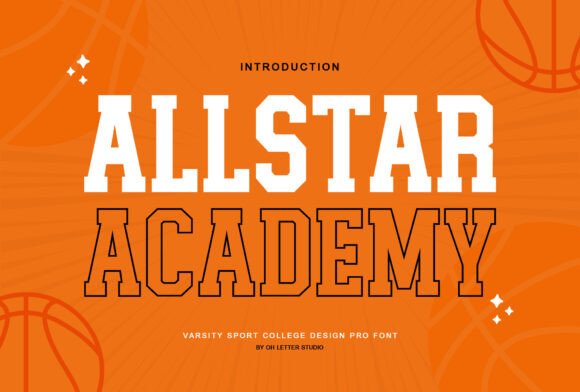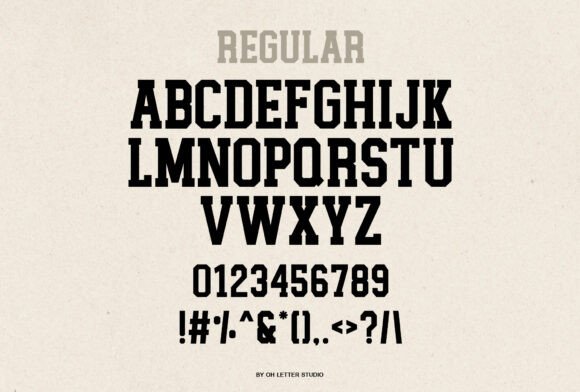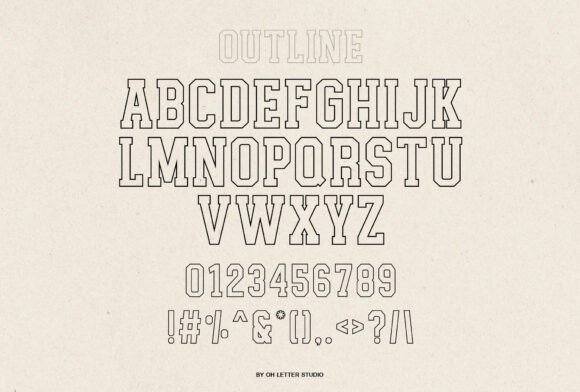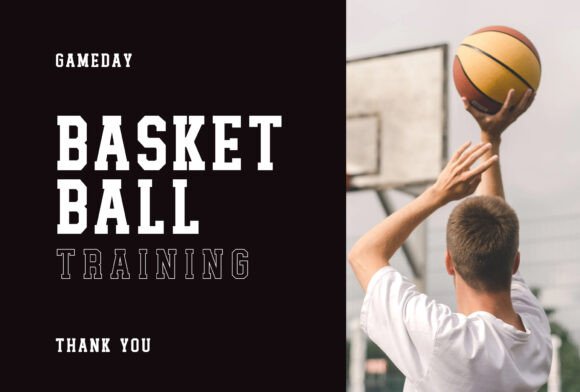
Allstar Academy Font
Varsity Sport Font is a high-impact typeface inspired by classic college and athletic lettering. Perfect for team jerseys, sports logos, school spirit designs, and varsity-themed projects, this font brings a strong, competitive feel to your work. Its clean, blocky letters are ideal for creating standout titles, apparel prints, and promotional materials. Whether you’re designing for football, basketball, or cheer squads, Varsity Sport Font delivers a powerful and professional athletic look.